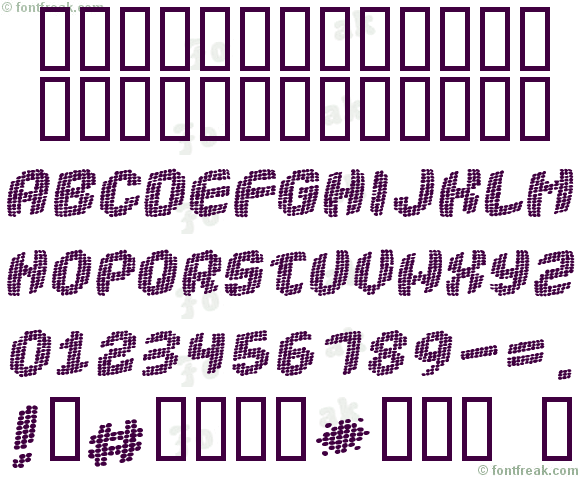
Robotica
About Robotica
Robotica, designed by Pizzadude, is a distinctive display font that captures the essence of futuristic design. Its unique visual character is defined by a playful arrangement of circular dots that create an eye-catching, modern aesthetic. The stroke weight is consistent, giving the font a uniform look, while the spacing between the letters adds to its readability. This decorative style makes Robotica stand out, making it a perfect choice for projects that require a touch of innovation and creativity.
Ideal use cases for the Robotica font include movie posters, where its bold and quirky design can attract attention and convey a sense of excitement. It is also well-suited for tech-related branding, as its futuristic vibe resonates with audiences interested in innovation. Small business owners looking to create memorable signage will find Robotica effective in drawing customers' eyes, while content creators can use it for social media graphics that aim to stand out in crowded feeds. Additionally, its playful nature makes it a fun choice for children's products or events, such as birthday invitations.
The target audience for the Robotica font spans graphic designers, small business owners, and content creators who seek a unique typographic solution for their visual projects. By opting for Robotica, designers can inject a sense of fun and creativity into their work, appealing to audiences looking for something fresh and engaging.